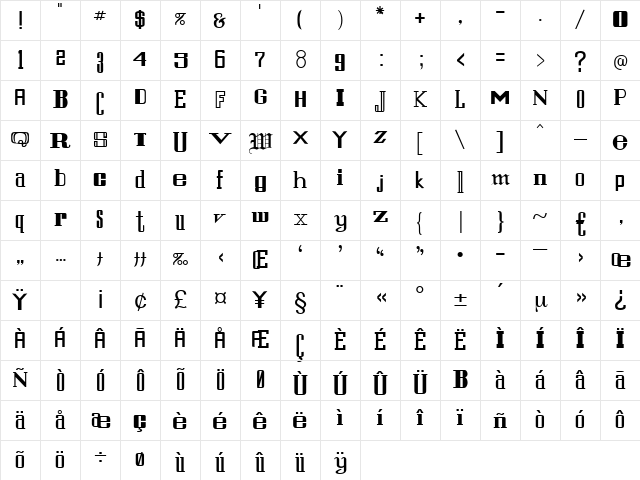
Warehouse Regular Free Font
Warehouse Regular
Warehouse Family
Design Context for Warehouse
Warehouse is a composed and adaptable typeface that performs quietly and consistently across a wide range of design contexts.